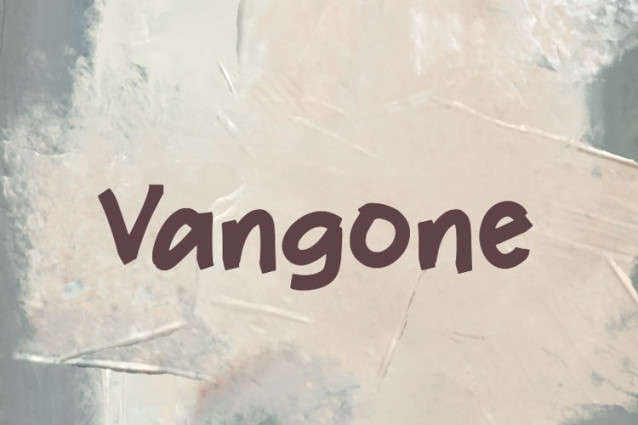
Vangone Font
Vangone Font is a chunky, comic, and cartoon display font. With its neat and joyful personality, this font will enhance any project you wish to create!